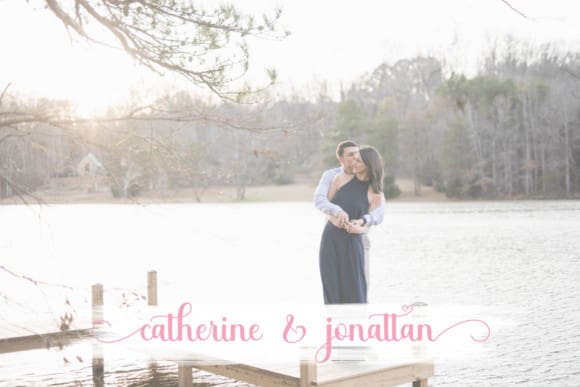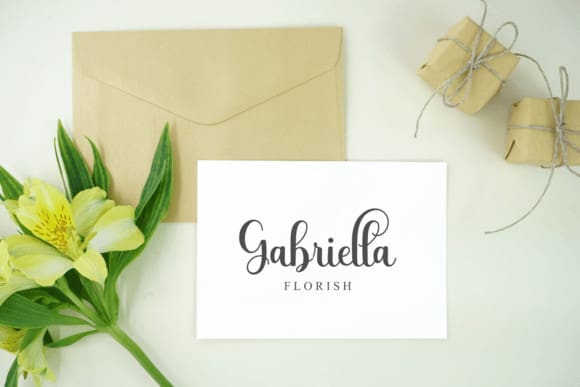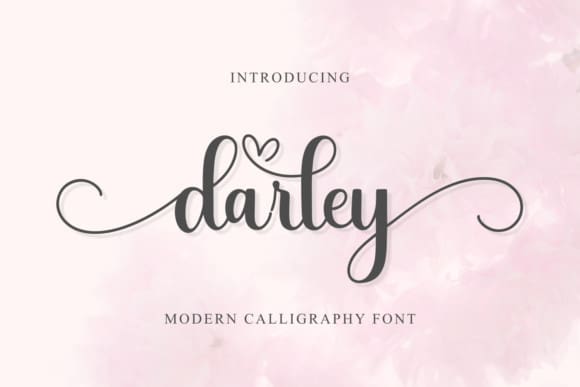
Darley Font
Darley Font is sweet and classy calligraphy font with an elegant style. Add it to your logos, labels, branding, invitations, websites, and quotes, and it will boost your designs and make them a true standout!